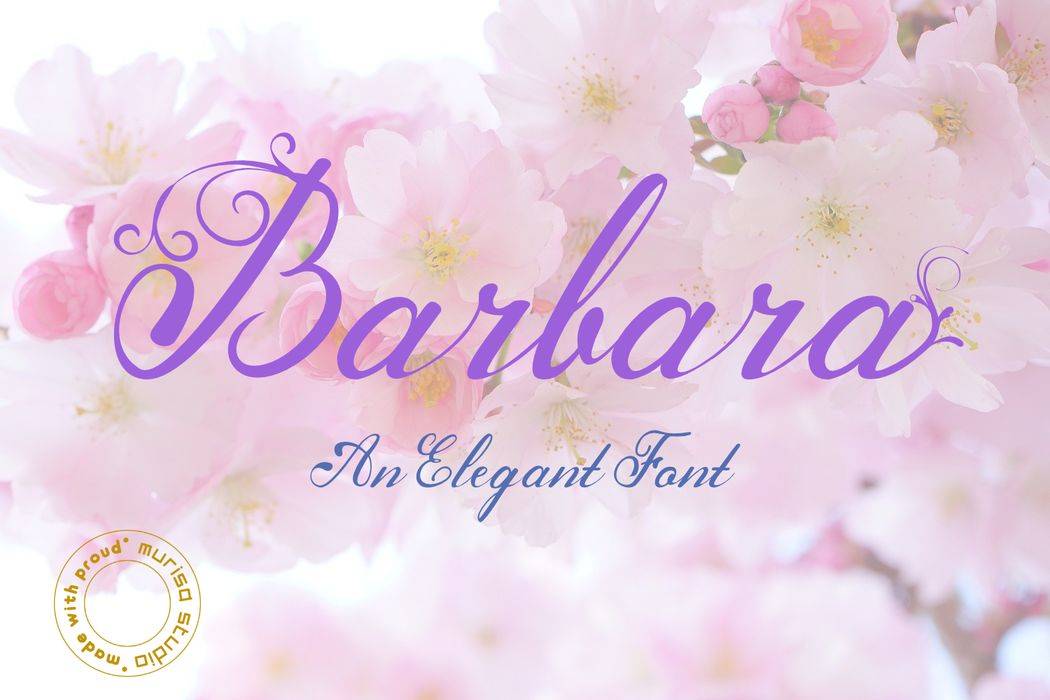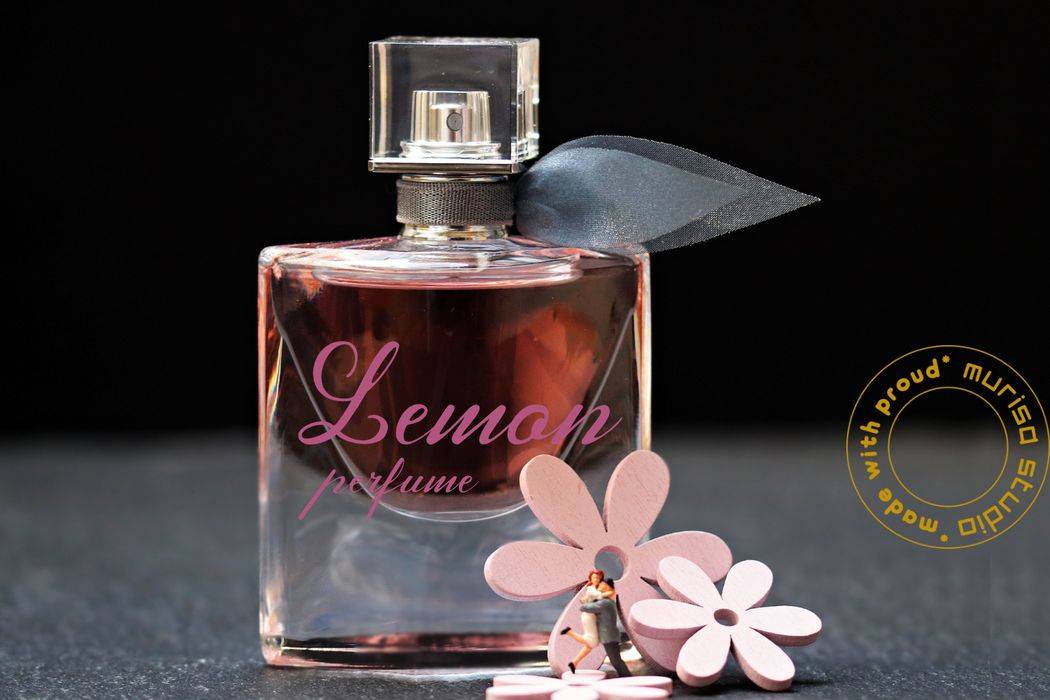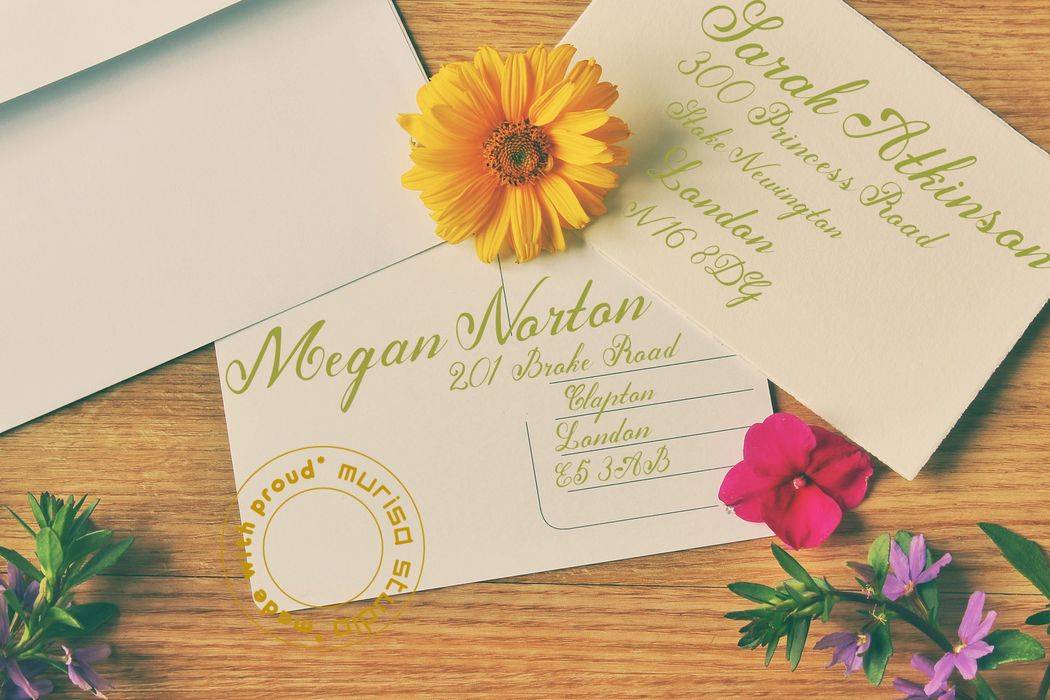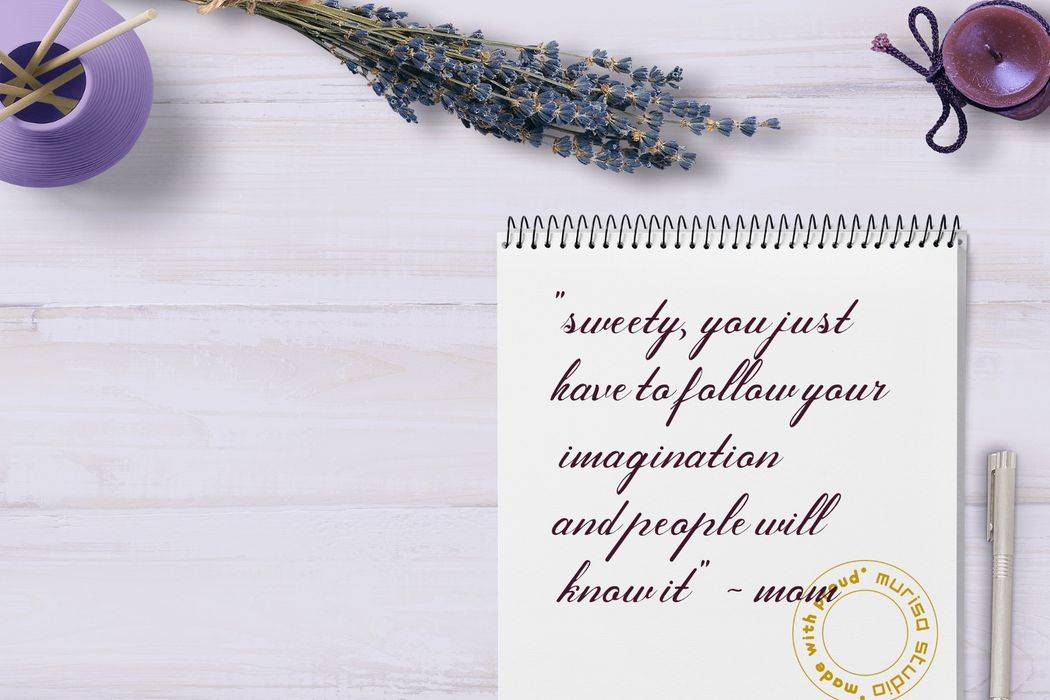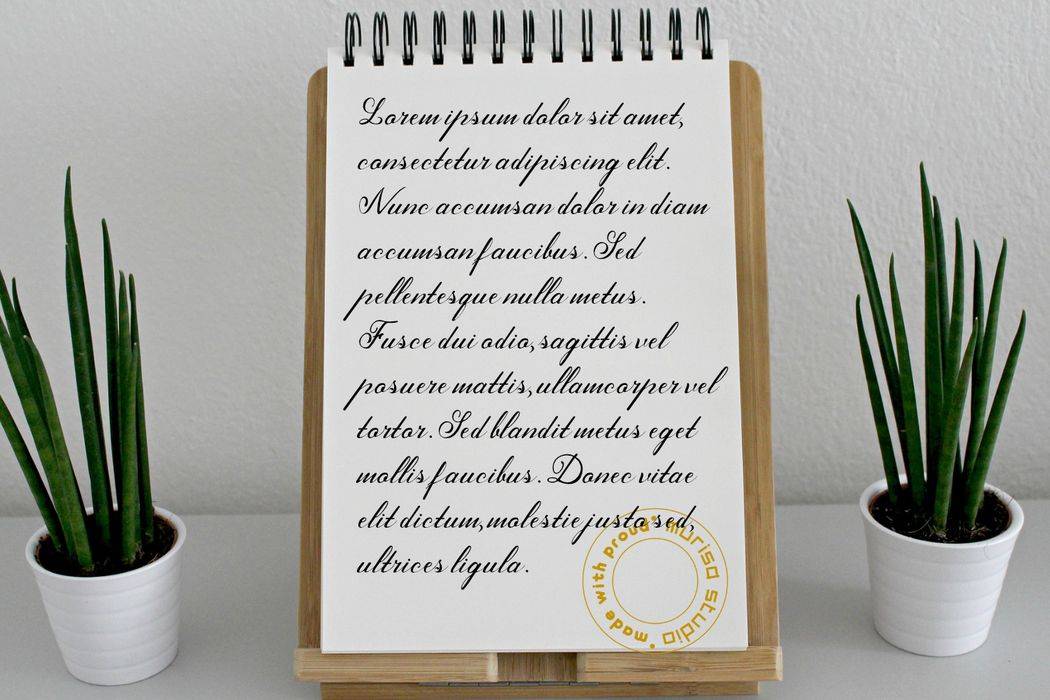
Murisa Barbara is an elegant script font featuring flowing, connected letterforms with a classic, refined feel. Its delicate strokes and smooth curves make it ideal for sophisticated branding, invitations, and luxury packaging, conveying a timeless and graceful personality. This font works best in display uses where its flourish and charm can truly shine.
Murisa Barbara Font
About Murisa Barbara Font
| Font family | Murisa Barbara Font |
| Designer | Lili Sadili |